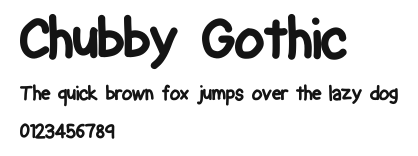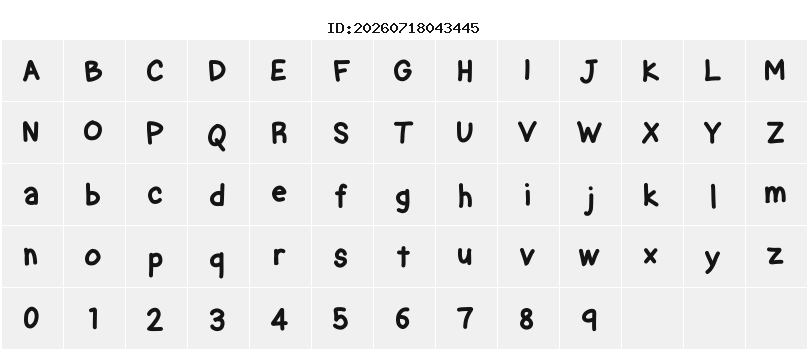
• Font Name: Chubby Gothic
• Full Font Name: Chubby Gothic
About Chubby Gothic.ttf
Chubby Gothic.ttf is a modern, elegant sans-serif font designed for ultimate readability and visual harmony. Perfect for branding, headlines, web design, and print materials.